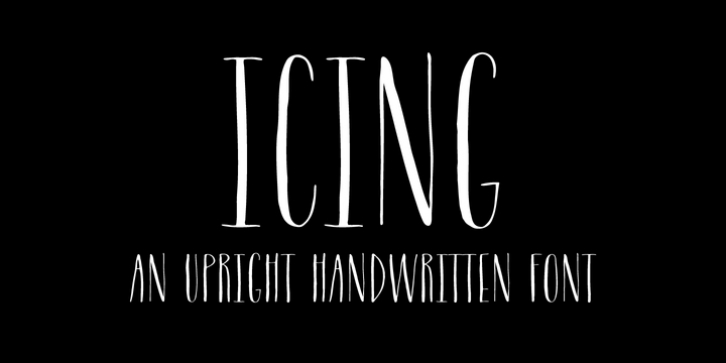
Icing downloadDesigner: Molly Jacques Erickson,
Publisher: Great Lakes Lettering
Icing is a font based on a naive, illustrated handwriting that can be used on a daily basis.
It is a delicate, handwritten front with a somewhat masculine feel which mimics the natural stroke of pointed pen calligraphy. Icing embodies a folksy feel that brings true character to any design.